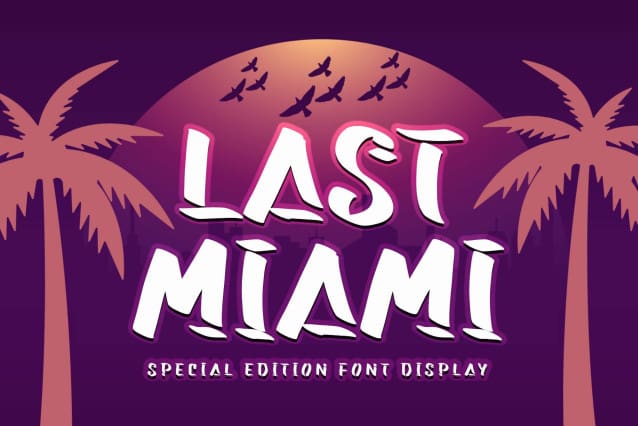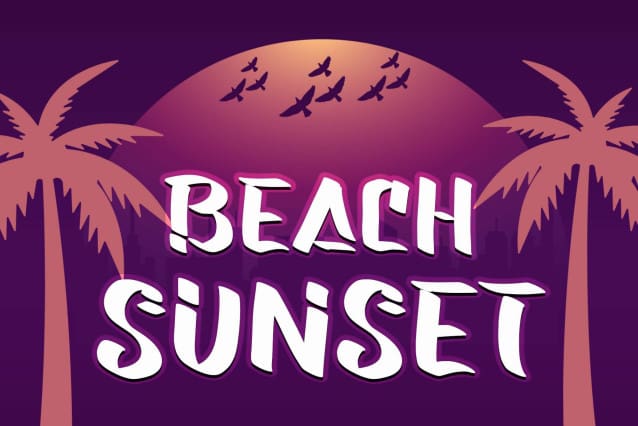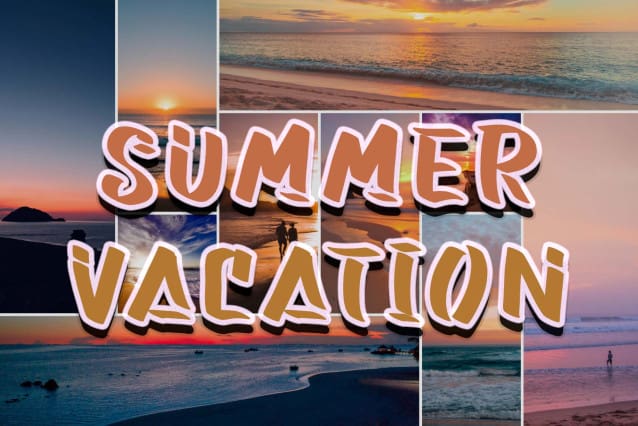
Last Miami Font
Last Miami Font is an elegant and professionally created display font. This font is equipped with uppercase, lowercase, numerals, punctuations and multilingual support. Very suitable for summer, holiday, vacation, tropical, beach party, 4th of July, father’s day, Halloween, Christmas, back to school and others.